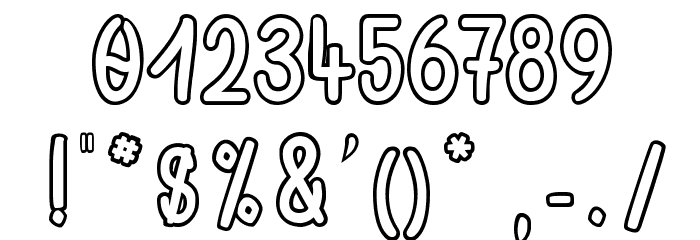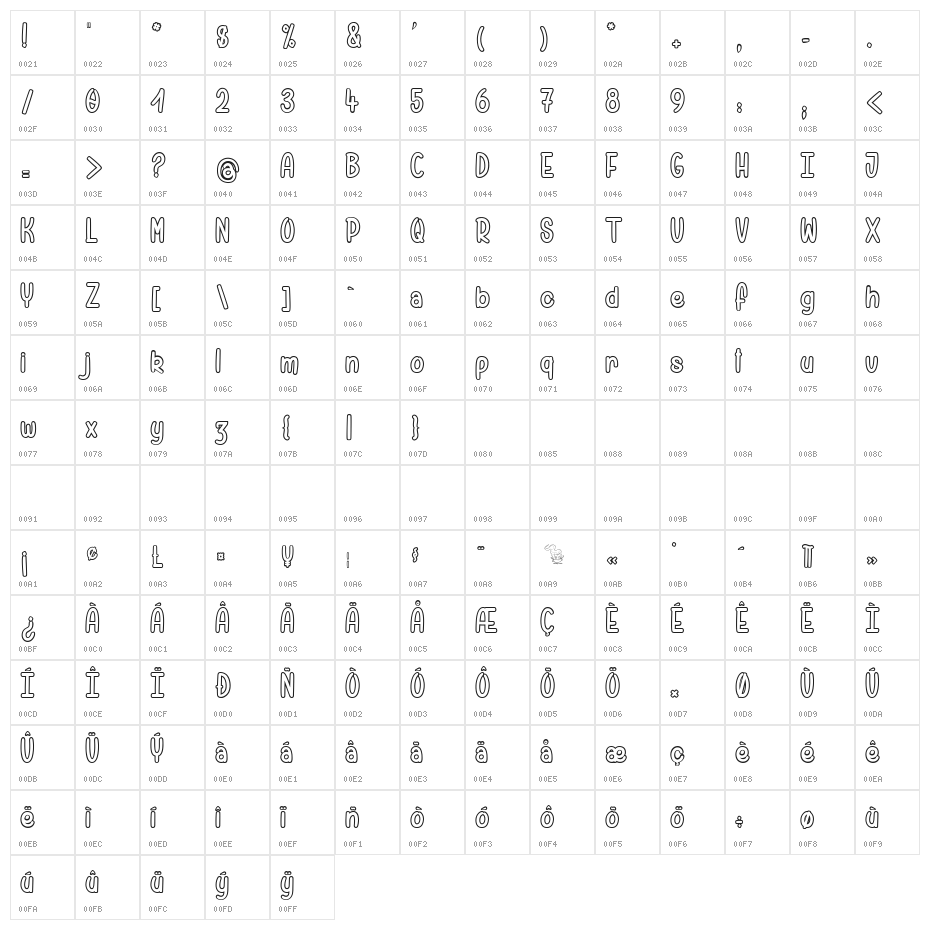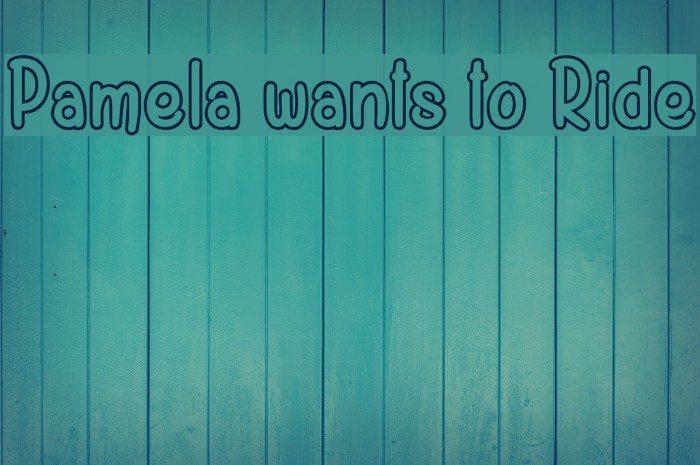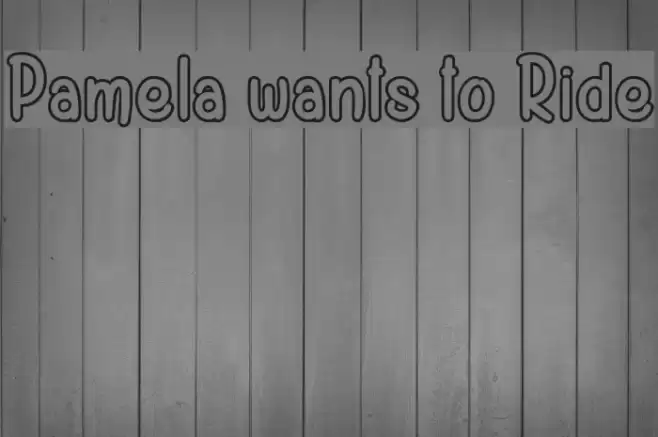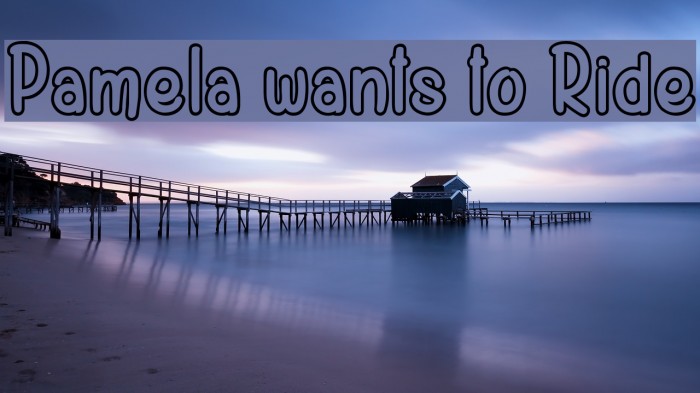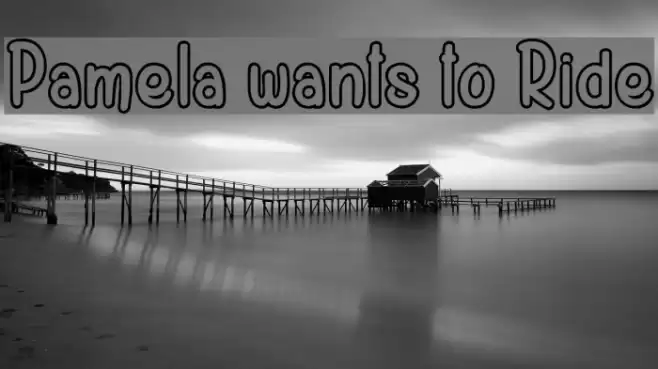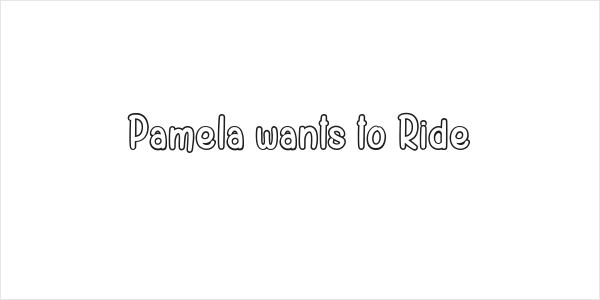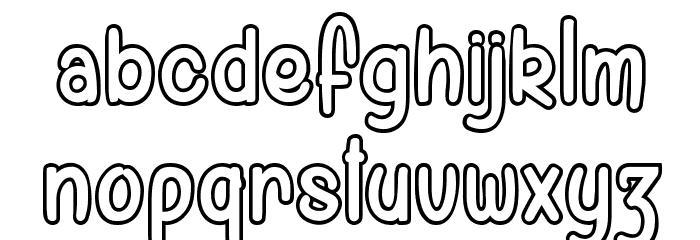
Pamela wants to Ride Font
Pamela wants to Ride Description
This playful and bold font features a unique outline style that gives it a lively and dynamic appearance. The characters are rounded and slightly condensed, creating a friendly and approachable look. The uppercase and lowercase letters maintain consistent proportions, while the numerals and special characters are designed to complement the overall style. The font's outline effect adds a layer of depth, making it suitable for eye-catching designs. Its whimsical nature makes it ideal for projects that require a fun and engaging visual element.
| Overall Style | Playful, Fun |
| Proposed Projects | Perfect for children's books, playful branding, party invitations, and creative posters. |